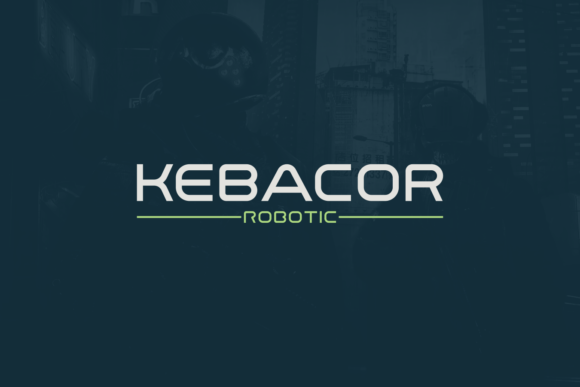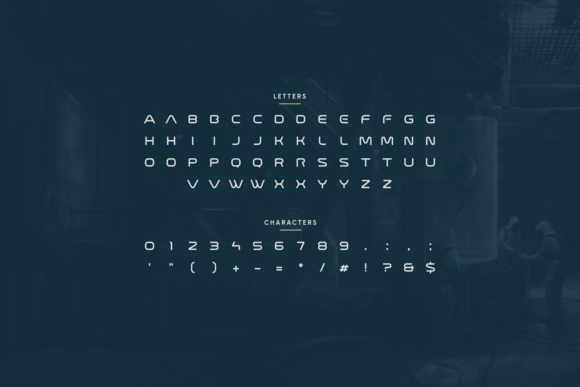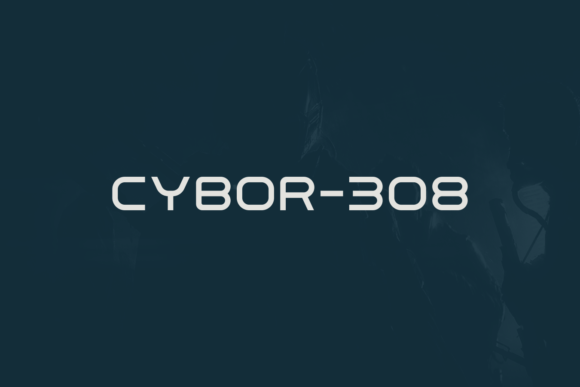
Benedic Font: The Ultimate Choice for Futuristic Branding Designs
In the world of typography, fonts play a crucial role in conveying the tone and personality of a brand. When it comes to creating a futuristic and sleek look, designers often find themselves searching for the perfect font. Look no further than Benedic Font, a clean and modern all-caps font with a sci-fi feel that’s taking the design world by storm.
What Makes Benedic Font So Special?
Benedic Font boasts a smooth and clean execution that makes it look sleek and elegant, perfect for futuristic branding designs. Its all-caps design gives it a strong and confident look, making it ideal for logos, headlines, posters, and more. The font’s sci-fi feel adds a touch of innovation and forward-thinking, making it a great choice for brands that want to stand out from the crowd.
Key Features of Benedic Font
- Clean and Modern Design: Benedic Font features a clean and modern design that’s perfect for creating a sleek and sophisticated look.
- All-Caps Design: The font’s all-caps design gives it a strong and confident look, making it ideal for logos, headlines, and more.
- Sci-Fi Feel: The font’s sci-fi feel adds a touch of innovation and forward-thinking, making it perfect for brands that want to stand out.
- Versatility: Benedic Font can easily be matched to an incredibly large set of projects, making it a versatile addition to any designer’s toolkit.
Perfect for Futuristic Branding Designs
Benedic Font is perfect for designers who want to create futuristic branding designs that stand out from the crowd. Its sleek and elegant design makes it ideal for:
- Logos: Create a strong and confident logo that represents your brand’s values and personality.
- Headlines: Use Benedic Font to create attention-grabbing headlines that draw in your audience.
- Posters: Create eye-catching posters that showcase your brand’s message and personality.
- Branding Materials: Use Benedic Font to create a consistent look across all your branding materials, from business cards to billboards.
Why Designers and Crafters Love Benedic Font
Designers and crafters love Benedic Font for its versatility and ease of use. Here are just a few reasons why:
- Easy to Read: Benedic Font is clean and easy to read, making it perfect for designs that require a clear and concise message.
- Highly Versatile: The font can be used in a wide range of projects, from logos and headlines to posters and more.
- Unique and Creative: Benedic Font’s sci-fi feel adds a touch of innovation and creativity to any design.
Tips for Using Benedic Font
Here are a few tips for using Benedic Font in your designs:
- Use it as a Title Font: Benedic Font is perfect for use as a title font, adding a touch of elegance and sophistication to your designs.
- Experiment with Colors: Try pairing Benedic Font with bold and bright colors to create a truly eye-catching design.
- Mix and Match: Don’t be afraid to mix and match Benedic Font with other fonts to create a unique and creative look.
Benedic Font is a game-changer for designers and crafters who want to create futuristic branding designs that stand out from the crowd. Its clean and modern design, all-caps style, and sci-fi feel make it perfect for logos, headlines, posters, and more. With its versatility and ease of use, Benedic Font is sure to become a staple in any designer’s toolkit.